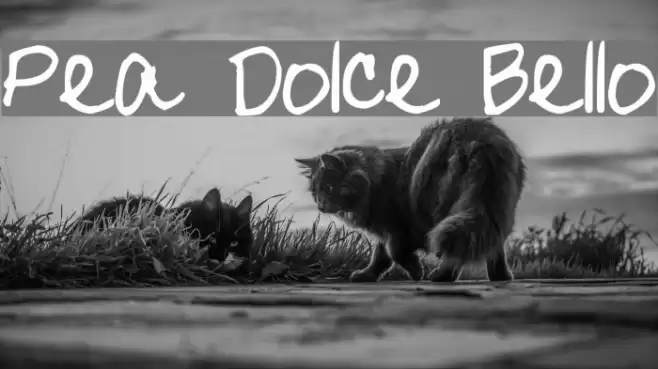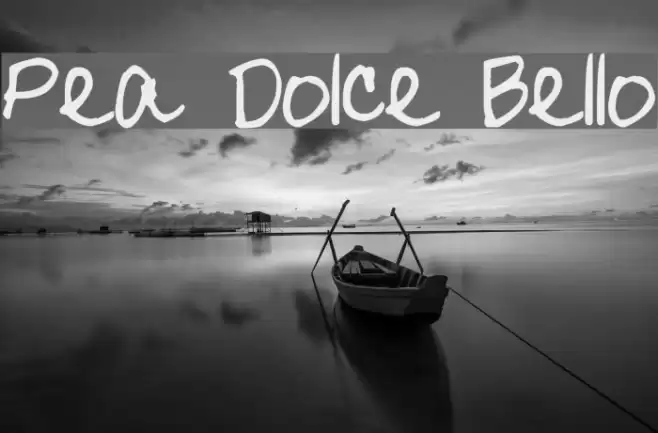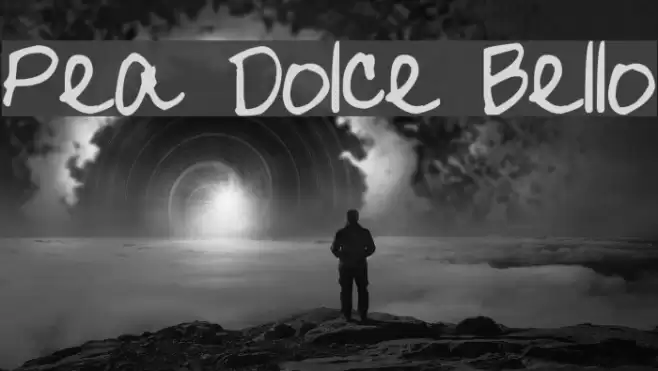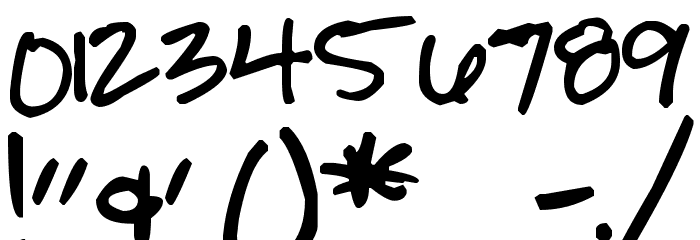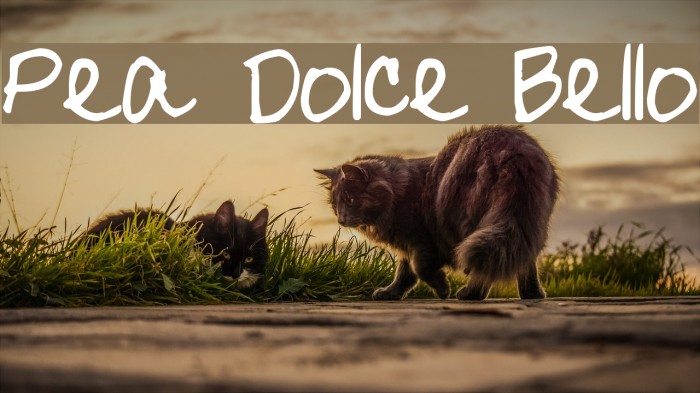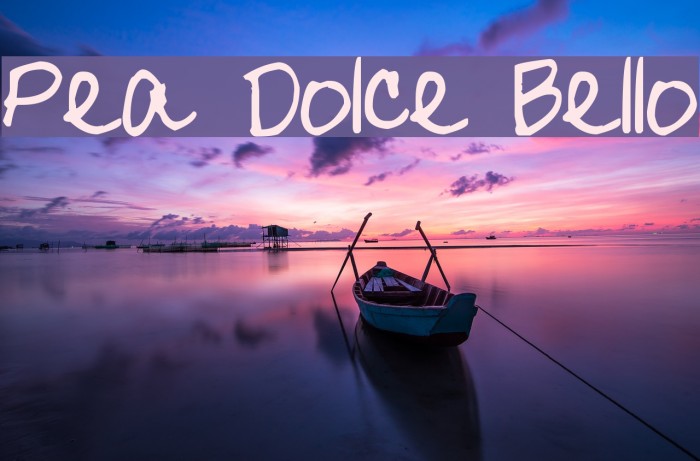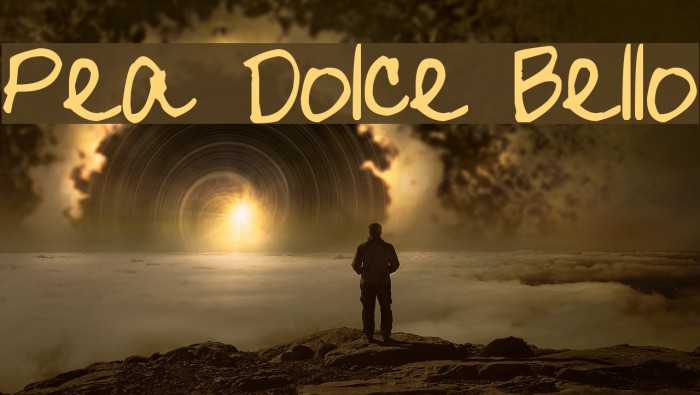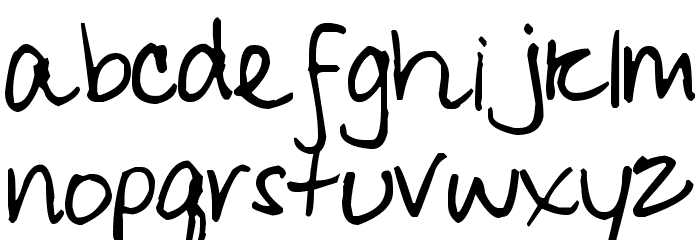
Pea Dolce Bello Font
Pea Dolce Bello Description
This playful and casual handwritten font exudes a sense of spontaneity and creativity. The letters are crafted with a natural, flowing style that mimics the look of a personal note or journal entry. The strokes are smooth and slightly uneven, adding to its charm and authenticity. The uppercase and lowercase letters are well-balanced, maintaining a consistent rhythm throughout. Numbers and special characters are included, each with a unique flair that complements the overall design. This font is perfect for projects that require a personal touch, such as invitations, greeting cards, or creative branding.
A playful and casual handwritten font with a natural, flowing style from Uncategorized fonts.
- Proposed Projects: Ideal for invitations, greeting cards, personal notes, and creative branding.
- Overall Style: Casual, Playful
- Use Case: Headlines, Logos, Personal notes